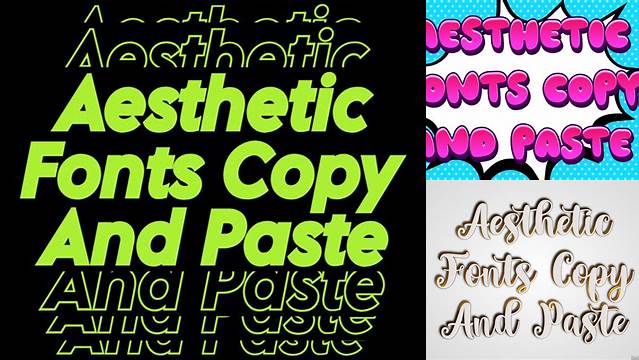
Aesthetic Fonts: Copy And Paste Guide For Stylish Text
Hey guys! Ever wanted to add a little pizzazz to your social media posts, presentations, or even just your everyday text messages? Well, you're in luck! One of the easiest ways to instantly elevate your text is by using aesthetic fonts. You know, those cool, unique fonts that make everything look a little more stylish and eye-catching. But how do you actually use them? That's where the magic of copy and paste comes in. This guide will dive deep into the world of aesthetic fonts, showing you how to find, copy, and paste them across various platforms. We'll cover everything from the different types of aesthetic fonts available to the best websites and apps for generating them. So, buckle up and get ready to transform your text from bland to grand!
What are Aesthetic Fonts?
Before we jump into the how-to, let's define what we mean by "aesthetic fonts." These aren't your standard Times New Roman or Arial. Aesthetic fonts are all about visual appeal and style. They encompass a wide range of font styles, each with its own unique personality. Think about it: a sleek, minimalist sans-serif font gives off a completely different vibe than a whimsical, cursive font. Aesthetic fonts help you to express yourself and set the tone for your message. In the vast landscape of digital communication, where text often lacks the nuances of tone and body language, the choice of font can significantly impact how your message is perceived. Therefore, aesthetic fonts are not merely decorative elements; they are powerful tools that can enhance the clarity, emotional resonance, and overall impact of your written content. For instance, a bold, futuristic font might be perfect for a tech-related post, while a delicate, calligraphic font could add a touch of elegance to a birthday invitation. Understanding the different categories and styles within aesthetic fonts is crucial for selecting the right font that aligns with your message and the platform you're using. Moreover, the effective use of aesthetic fonts can extend beyond personal communications and branding efforts. Businesses and content creators are increasingly leveraging these fonts to create visually engaging marketing materials, social media content, and website designs. The goal is to capture the audience's attention and leave a lasting impression, and aesthetic fonts play a significant role in achieving this objective. The versatility of these fonts means they can be adapted for a wide array of purposes, from creating minimalist logos to crafting elaborate, artistic displays. Ultimately, the key to mastering aesthetic fonts lies in understanding their potential and how they can be strategically employed to convey your intended message and style. Whether you're aiming for a modern, classic, playful, or sophisticated look, there's an aesthetic font out there that perfectly matches your vision.
Types of Aesthetic Fonts
The world of aesthetic fonts is vast and varied, offering a plethora of options to suit every taste and style. To navigate this landscape effectively, it's helpful to understand the main categories and styles that fall under the umbrella of "aesthetic fonts." From elegant cursive scripts to futuristic sans-serifs, the possibilities are endless. One of the most popular categories is script fonts, which mimic the fluid strokes of handwriting. These fonts can range from formal and elegant, perfect for invitations and announcements, to casual and whimsical, ideal for personal messages and creative projects. Cursive fonts, with their flowing letterforms, evoke a sense of sophistication and personalization, making them a favorite for projects that require a touch of human warmth. On the other end of the spectrum are sans-serif fonts, characterized by their clean lines and lack of decorative serifs (the small strokes at the ends of letters). Sans-serif fonts often convey a sense of modernity, minimalism, and clarity. They are particularly well-suited for digital displays and designs where readability is paramount. Within the sans-serif category, you'll find a wide range of styles, from geometric fonts with sharp angles to humanist fonts with a more organic feel. Then there are serif fonts, which, as the name suggests, have serifs. Serif fonts are often associated with tradition, authority, and readability in print. They have a classic and timeless appeal, making them a popular choice for books, newspapers, and formal documents. Each serif font has its own distinct character, from the elegant and refined serifs of Times New Roman to the bold and authoritative serifs of Garamond. Beyond these main categories, there are countless other styles to explore. Display fonts are designed to grab attention and make a statement. They often feature unique and unconventional letterforms, making them ideal for headlines, logos, and posters. Decorative fonts encompass a wide range of styles, from vintage and retro to futuristic and abstract. These fonts are perfect for adding personality and flair to your designs. Grunge fonts, with their rough and distressed appearance, add a touch of edginess and authenticity. Ultimately, the best way to discover your favorite aesthetic fonts is to experiment and explore the different styles available. Consider the mood and message you want to convey, and choose a font that aligns with your vision. With so many options to choose from, you're sure to find the perfect font to elevate your text and designs.
Why Use Aesthetic Fonts?
So, why bother with aesthetic fonts in the first place? The answer is simple: they make your text stand out. In a world saturated with information, grabbing attention is crucial. Aesthetic fonts are a powerful tool for doing just that. Whether you're crafting a social media post, designing a presentation, or simply sending a message to a friend, the right font can make all the difference. One of the primary reasons to use aesthetic fonts is to enhance visual appeal. Let's face it, standard fonts can be a bit boring. They're functional, but they don't exactly scream style. Aesthetic fonts, on the other hand, add personality and flair to your text. They can make your message more engaging, memorable, and visually appealing. Imagine scrolling through your social media feed and seeing a post with a beautifully crafted font. It's going to catch your eye, right? That's the power of aesthetics. Beyond visual appeal, aesthetic fonts can also convey specific emotions and tones. Different fonts evoke different feelings. A delicate, cursive font might convey elegance and romance, while a bold, sans-serif font might convey confidence and authority. By choosing a font that aligns with the message you're trying to convey, you can enhance the emotional impact of your text. For example, if you're writing a birthday greeting, a playful, handwritten font might be perfect. If you're creating a professional presentation, a clean, modern font might be more appropriate. Furthermore, aesthetic fonts can improve readability and accessibility. While some fonts are purely decorative, many aesthetic fonts are designed with readability in mind. They can make your text easier to read, especially in digital formats. Choosing a font with clear, well-defined letterforms can prevent eye strain and ensure that your message is easily understood. In addition, using a variety of fonts can help to create visual hierarchy and highlight important information. By using different fonts for headings, subheadings, and body text, you can guide the reader's eye and make your content more digestible. Ultimately, the benefits of using aesthetic fonts extend beyond mere aesthetics. They can enhance communication, evoke emotions, improve readability, and help you stand out in a crowded digital landscape. Whether you're a social media enthusiast, a content creator, a business owner, or simply someone who wants to add a touch of style to their text, aesthetic fonts are a valuable tool to have in your arsenal.
How to Copy and Paste Aesthetic Fonts
Now for the fun part: how to actually copy and paste these awesome fonts! The good news is that it's super easy. You don't need any fancy software or design skills. All you need is a website or app that generates aesthetic fonts and a device with copy-paste functionality. The basic process is the same across most platforms: you type your text into the generator, choose your favorite font, and then copy and paste the result into your desired application. However, there are a few nuances and tips to keep in mind, depending on where you're using the font. One of the most important things to understand is that aesthetic fonts are often created using Unicode characters. Unicode is a universal character encoding standard that includes a vast range of symbols, letters, and glyphs. Many aesthetic fonts use these special characters to create their unique styles. This means that while the fonts look great in applications that support Unicode, they may not display correctly in applications that don't. Before you start copying and pasting aesthetic fonts, it's a good idea to test them out in different applications to ensure they render correctly. Try pasting the font into a text editor, a social media post, and a messaging app to see how it looks. If you encounter any issues, you may need to adjust your settings or choose a different font. When copying and pasting aesthetic fonts, it's also important to consider the context in which you're using them. A font that looks great in a short social media caption may not be suitable for a long document or presentation. Think about the overall design and message you're trying to convey, and choose a font that fits the occasion. Furthermore, be mindful of overusing aesthetic fonts. While they can add visual interest to your text, too many different fonts can be overwhelming and distracting. Stick to a limited palette of fonts to maintain a cohesive and professional look. In the following sections, we'll explore some of the best websites and apps for generating aesthetic fonts, as well as some tips for using them effectively across different platforms. Whether you're looking to jazz up your Instagram captions, create eye-catching presentations, or simply add a touch of style to your everyday communications, mastering the art of copying and pasting aesthetic fonts is a valuable skill in the digital age.
Websites for Generating Aesthetic Fonts
There are tons of websites out there that let you generate aesthetic fonts with a simple copy and paste. These websites are incredibly convenient because they don't require any software downloads or installations. You can access them from any device with an internet connection, making them a versatile tool for creating stylish text on the go. One of the most popular options is LingoJam. LingoJam offers a wide variety of aesthetic fonts, from cursive and gothic to bubble and upside-down. Simply type your text into the input box, and LingoJam will instantly generate a selection of fonts for you to choose from. You can then copy and paste your favorite font into your desired application. Another excellent website is Cool Fancy Text Generator. This site offers a similar range of font styles, as well as some unique options like strikethrough and underlines. Cool Fancy Text Generator is particularly useful for creating text that stands out on social media platforms, where the character limit can be a challenge. By using a condensed or stylized font, you can fit more text into your posts while still maintaining a visually appealing aesthetic. Text Editor is another great option, offering a clean and user-friendly interface. This website is particularly useful for creating large blocks of text in aesthetic fonts, as it allows you to easily edit and format your text before copying and pasting it. In addition to these general-purpose font generators, there are also websites that specialize in specific styles of aesthetic fonts. For example, YayText is a popular choice for generating small text fonts, which are perfect for creating subtle accents and details in your designs. IGFonts.io is specifically designed for creating fonts that work well on Instagram, offering a range of stylish options that are optimized for the platform's character limits and display settings. When using these websites, it's important to consider the compatibility of the fonts with the applications you're using. Some fonts may not display correctly in certain apps or browsers. It's always a good idea to test the font before you use it extensively. Also, be mindful of overusing aesthetic fonts. While they can add visual interest to your text, too many different fonts can be overwhelming. Stick to a consistent style to maintain a cohesive look. Ultimately, the best way to find the perfect font for your needs is to experiment with different websites and styles. With so many options available, you're sure to discover a font that perfectly captures your vision and enhances your message.
Apps for Generating Aesthetic Fonts
If you prefer to generate aesthetic fonts on your smartphone or tablet, there are plenty of apps available for both iOS and Android devices. These apps offer the convenience of creating stylish text directly on your mobile device, making them ideal for social media posts, messages, and other mobile-first content. One of the top-rated apps for generating aesthetic fonts is Fontsy. Fontsy boasts a vast library of fonts, including everything from classic scripts to modern sans-serifs. The app's user-friendly interface makes it easy to browse and preview fonts, and you can even create custom font combinations to match your personal style. Fontsy also offers a range of customization options, allowing you to adjust the size, color, and spacing of your text. Another popular app is Cool Fonts. Cool Fonts offers a similar range of font styles, as well as some unique features like text effects and background colors. The app also includes a built-in keyboard that allows you to easily type in aesthetic fonts directly into any app on your device. This is a particularly useful feature for social media platforms that don't support custom fonts natively. Stylish Text is another excellent app for generating aesthetic fonts. Stylish Text offers a wide variety of font styles, including cursive, gothic, and bubble fonts. The app also includes a range of decorative elements, such as symbols and emojis, that you can use to further enhance your text. Stylish Text is particularly popular for creating eye-catching social media bios and captions. In addition to these general-purpose font generators, there are also apps that specialize in specific styles of aesthetic fonts. For example, Fonts for Instagram is specifically designed for creating fonts that work well on Instagram. The app offers a range of stylish options that are optimized for the platform's character limits and display settings. Fancy Text Generator is another popular choice for creating decorative and unusual fonts. When choosing an app for generating aesthetic fonts, it's important to consider the features and functionality that are most important to you. Some apps offer a wider range of font styles, while others focus on customization options or ease of use. It's also a good idea to read reviews and ratings to get an idea of the app's quality and reliability. As with websites, it's important to test the fonts in different applications to ensure they display correctly. Some apps may not be compatible with all platforms. Ultimately, the best way to find the perfect app for your needs is to try out a few different options and see which one you like best. With so many great apps available, you're sure to find one that makes it easy to create stylish text on the go.
Where to Use Aesthetic Fonts
Now that you know how to copy and paste aesthetic fonts, let's talk about where you can actually use them. The possibilities are virtually endless! Aesthetic fonts can add a touch of style and personality to a wide range of applications, from social media posts to presentations to personal messages. One of the most popular places to use aesthetic fonts is on social media. Platforms like Instagram, Twitter, and Facebook are all about visual appeal, and aesthetic fonts can help your posts stand out from the crowd. Whether you're crafting a catchy caption, designing an eye-catching profile bio, or creating a visually appealing story, aesthetic fonts can make a big difference. Use them to highlight key information, add a touch of personality, or simply make your content more engaging. Another great place to use aesthetic fonts is in presentations. A well-designed presentation is crucial for capturing your audience's attention and conveying your message effectively. Aesthetic fonts can help you create visually appealing slides that are both informative and engaging. Use them for headings, subheadings, and bullet points to create visual hierarchy and make your content easier to read. You can also use different fonts to emphasize key points and add a touch of personality to your presentation. Aesthetic fonts are also a great way to personalize your messages. Whether you're sending a text message to a friend, writing an email, or creating a greeting card, aesthetic fonts can add a personal touch and make your message more meaningful. Use them to express your creativity, convey your emotions, or simply make someone's day. Aesthetic fonts can also be used for branding and marketing purposes. If you're a business owner or content creator, aesthetic fonts can help you create a consistent and memorable brand identity. Use them in your logo, website, marketing materials, and social media posts to create a cohesive visual style that represents your brand. Aesthetic fonts can also be used to create eye-catching advertisements and promotional materials. Beyond these specific examples, aesthetic fonts can be used in countless other applications. You can use them to design invitations, create posters, write letters, or even personalize your journal. The key is to experiment and have fun with different fonts and styles. Consider the context in which you're using the font and choose a style that aligns with your message and aesthetic. With a little creativity, you can use aesthetic fonts to enhance any text-based communication.
Common Issues and How to Fix Them
While copying and pasting aesthetic fonts is generally straightforward, there are a few common issues you might encounter. Fortunately, most of these issues are easily fixable. One of the most common problems is font incompatibility. As mentioned earlier, aesthetic fonts are often created using Unicode characters, which may not be supported by all applications or platforms. If you paste an aesthetic font into an application that doesn't support Unicode, the font may display as gibberish or a series of boxes. To fix this issue, try using a different font generator or app. Some font generators offer a range of font styles, some of which may be more compatible with certain applications. You can also try using a different application or platform that supports Unicode. Another common issue is font size and spacing. Aesthetic fonts can sometimes appear larger or smaller than standard fonts, and the spacing between letters and words may also be different. This can make your text look awkward or difficult to read. To fix this issue, you may need to adjust the font size and spacing manually. Most applications offer options for adjusting these settings. You can also try using a different font style that is more visually balanced. Character limits can also be a challenge when using aesthetic fonts. Some fonts take up more space than standard fonts, which can make it difficult to fit your text within the character limits of social media platforms or other applications. To address this issue, try using a more condensed font style. You can also try shortening your text or using abbreviations. Rendering issues can also occur, where the font appears distorted or pixelated. This can be caused by a variety of factors, including the font's design, the application's rendering engine, and the device's display settings. To fix this issue, try using a different font generator or app. You can also try adjusting your device's display settings or updating the application. Finally, overuse of aesthetic fonts can be a problem. While aesthetic fonts can add visual interest to your text, too many different fonts can be overwhelming and distracting. Stick to a limited palette of fonts to maintain a cohesive and professional look. Ultimately, the key to troubleshooting issues with aesthetic fonts is to experiment and be patient. Try different fonts, applications, and settings until you find a combination that works well for your needs. With a little trial and error, you can overcome most common issues and create stylish text that stands out.
So, there you have it! Everything you need to know about aesthetic fonts and how to copy and paste them like a pro. Aesthetic fonts are a fantastic way to add personality and style to your text, whether you're crafting social media posts, designing presentations, or simply sending messages to friends. By understanding the different types of aesthetic fonts available, the best websites and apps for generating them, and how to troubleshoot common issues, you can elevate your text and make a lasting impression. Remember, the key is to experiment, have fun, and find fonts that resonate with your personal style and message. Don't be afraid to try new things and push the boundaries of your creativity. With a little practice, you'll be a master of aesthetic fonts in no time. So go ahead, unleash your inner font enthusiast, and start creating visually stunning text that captures attention and conveys your message in style. Whether you're aiming for a sleek and modern look, a playful and whimsical vibe, or a classic and elegant feel, there's an aesthetic font out there that's perfect for you. Happy fonting, guys!